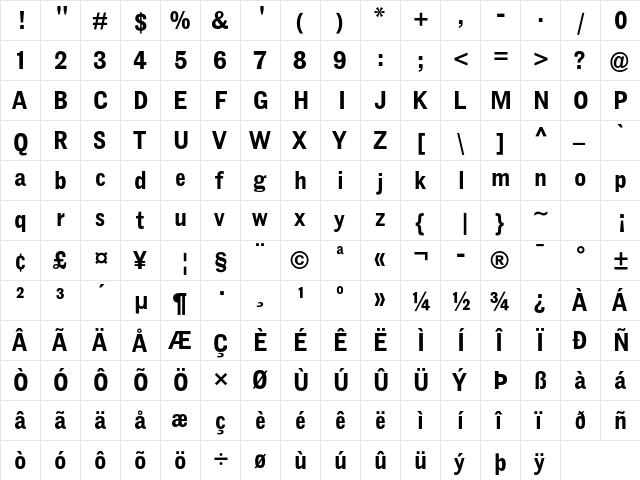
Grotesque Disp MT Std Regular
Design Context for Grotesque Disp MT Std Typeface
Grotesque Disp MT Std takes a measured approach to typography — its balanced proportions and neutral character make it a reliable workhorse for both digital and print work.
Pro Tip: Use Grotesque Disp MT Std in both headline and body roles to test its range before committing to a single application.